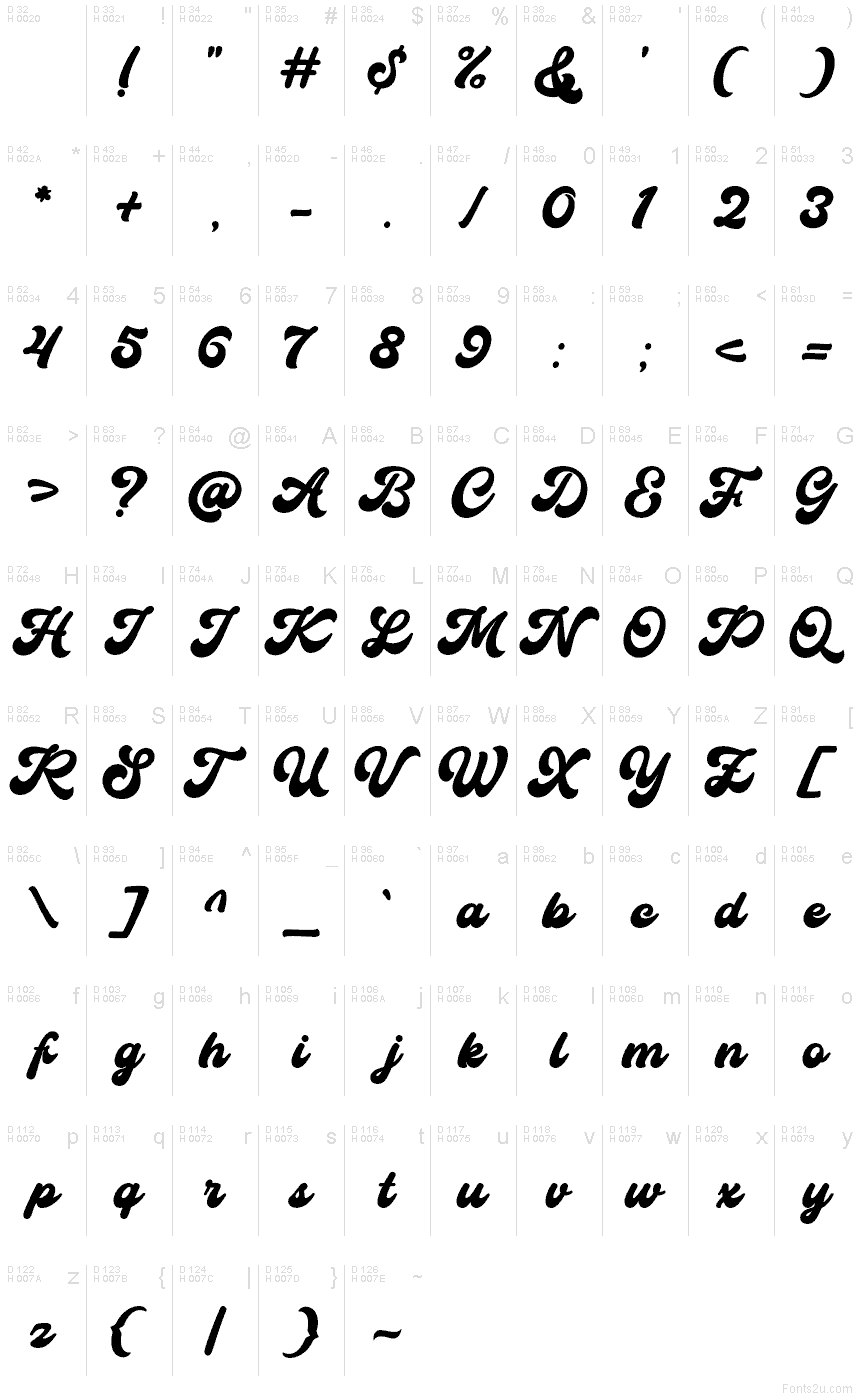
Youthead Script
Youthead Script font by Namara Creative is a free retro brush font. It stands out with velvety, paint-loaded strokes, rounded terminals, and seamless connections that read like fresh sign‑painting—confident, not messy. The caps sweep in with tasteful flair while the lowercase stays sturdy and rhythmic, giving you lush personality without sacrificing clarity at headline sizes.
Using Youthead Script, you’ll nail logos, packaging, cafe menus, merch, event posters, social graphics, and badge-style marks. The generous weight holds up on busy backgrounds, and the smooth joins keep words flowing in tight compositions. Pair this free font with a clean grotesque sans for body copy, and let Youthead Script take the spotlight a notch larger with slightly snug tracking.